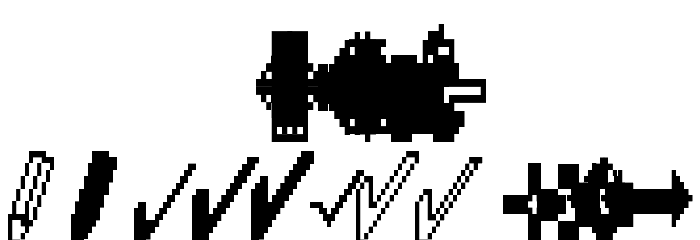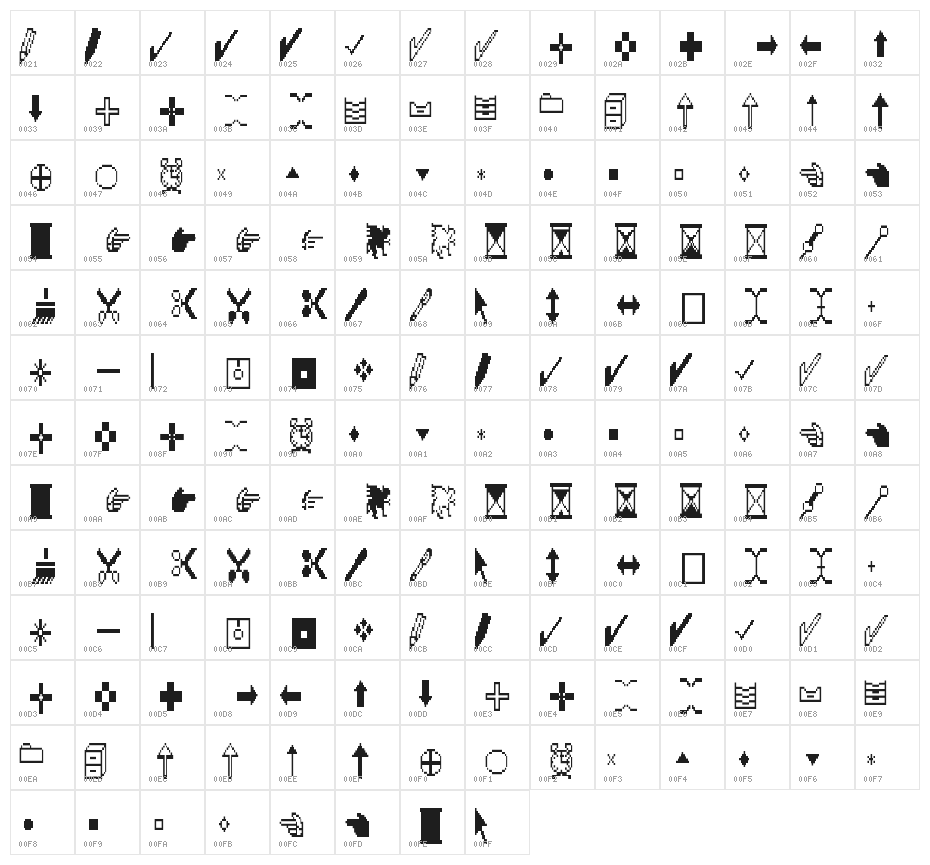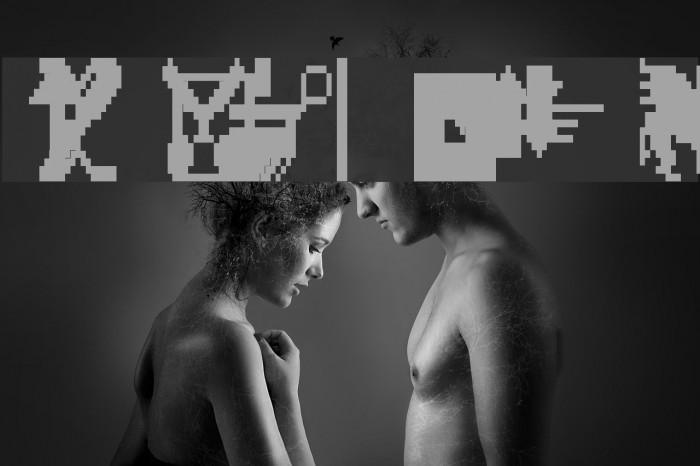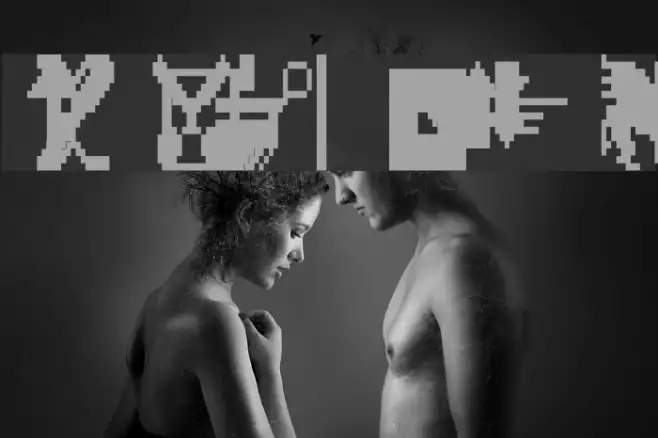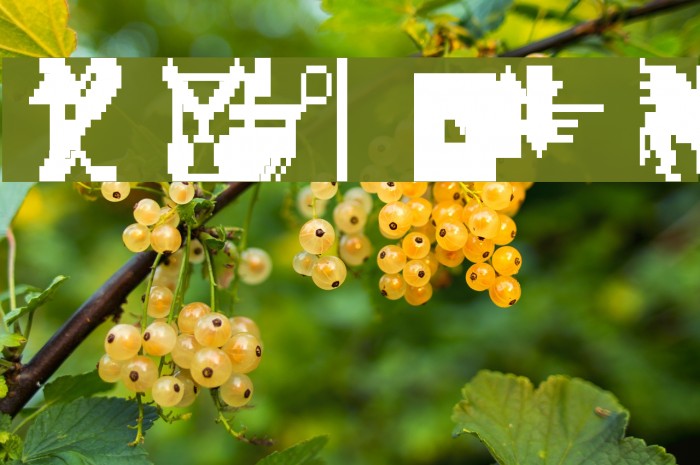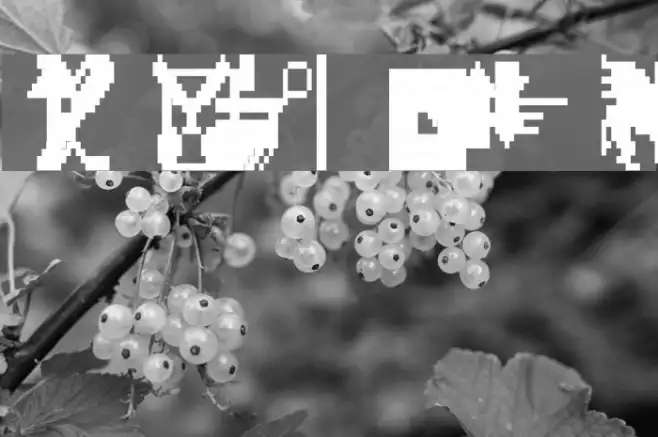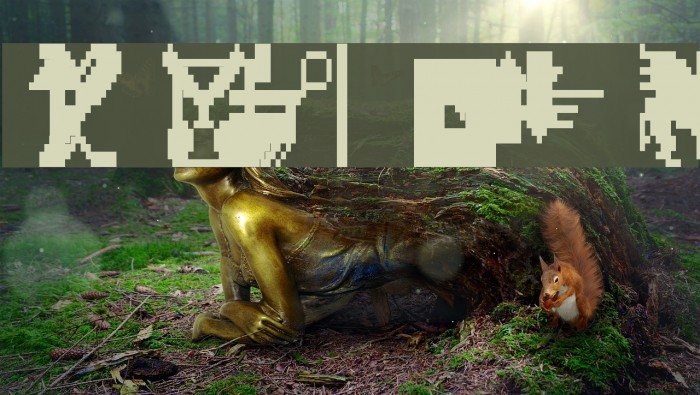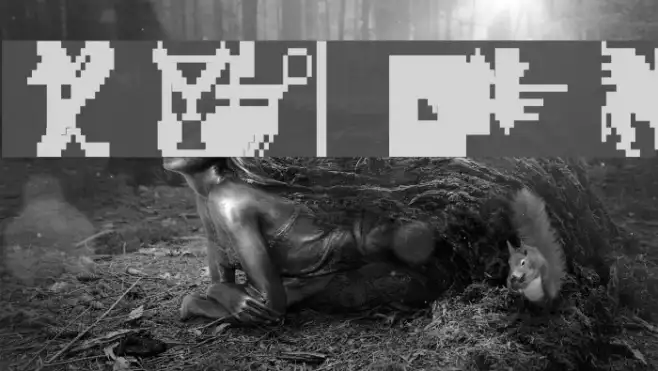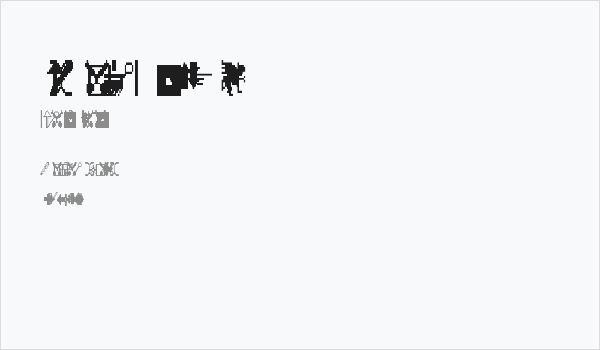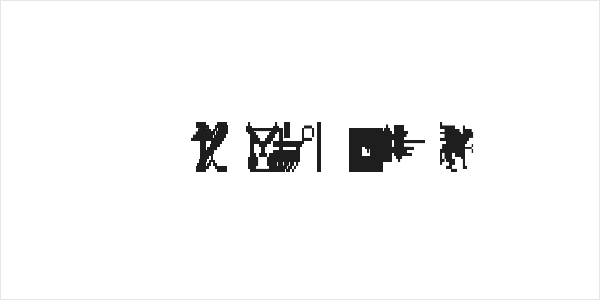
Engelbart 2X3Y Font
Engelbart 2X3Y Description
A collection of pixelated, abstract symbols and icons resembling machinery, arrows, check marks, and geometric shapes, rendered in a bold, blocky style with high contrast and no discernible letterforms.
| Overall Style | Retro, Mechanical, Abstract |
| Use Case | Icons, UI elements, decorative graphics |
| Proposed Projects | Retro digital interfaces, video game UI, pixel art projects, iconography for tech-themed designs. |